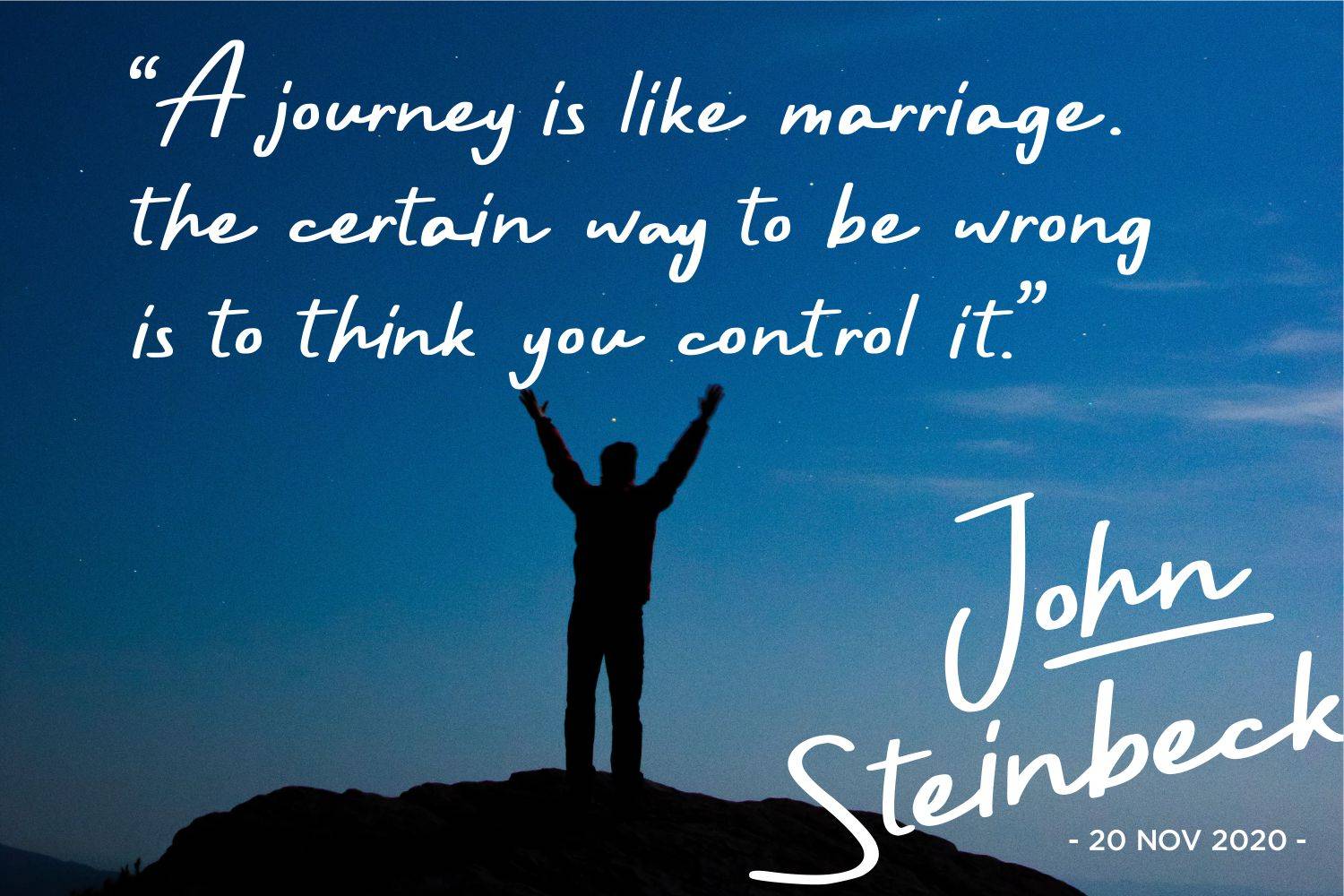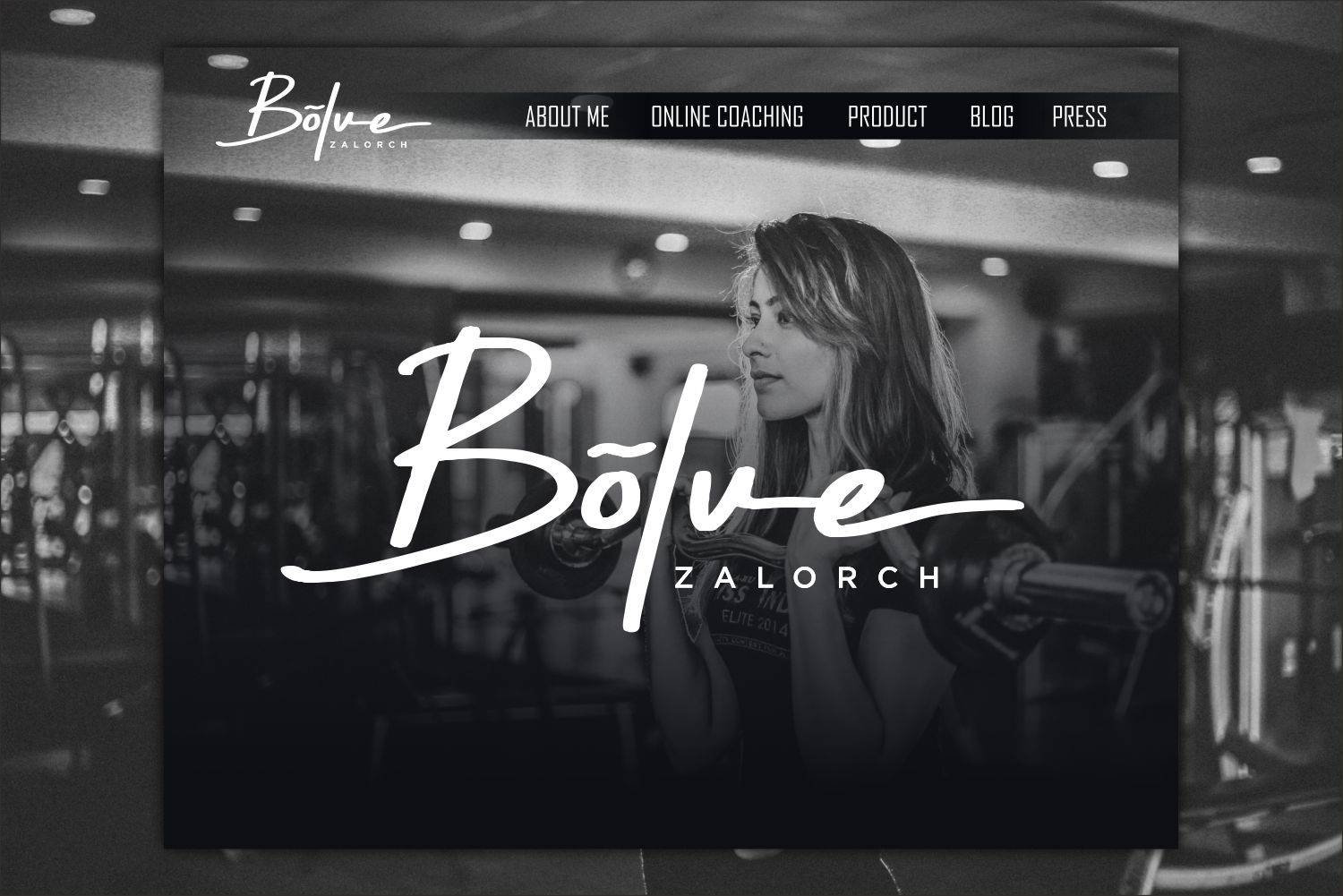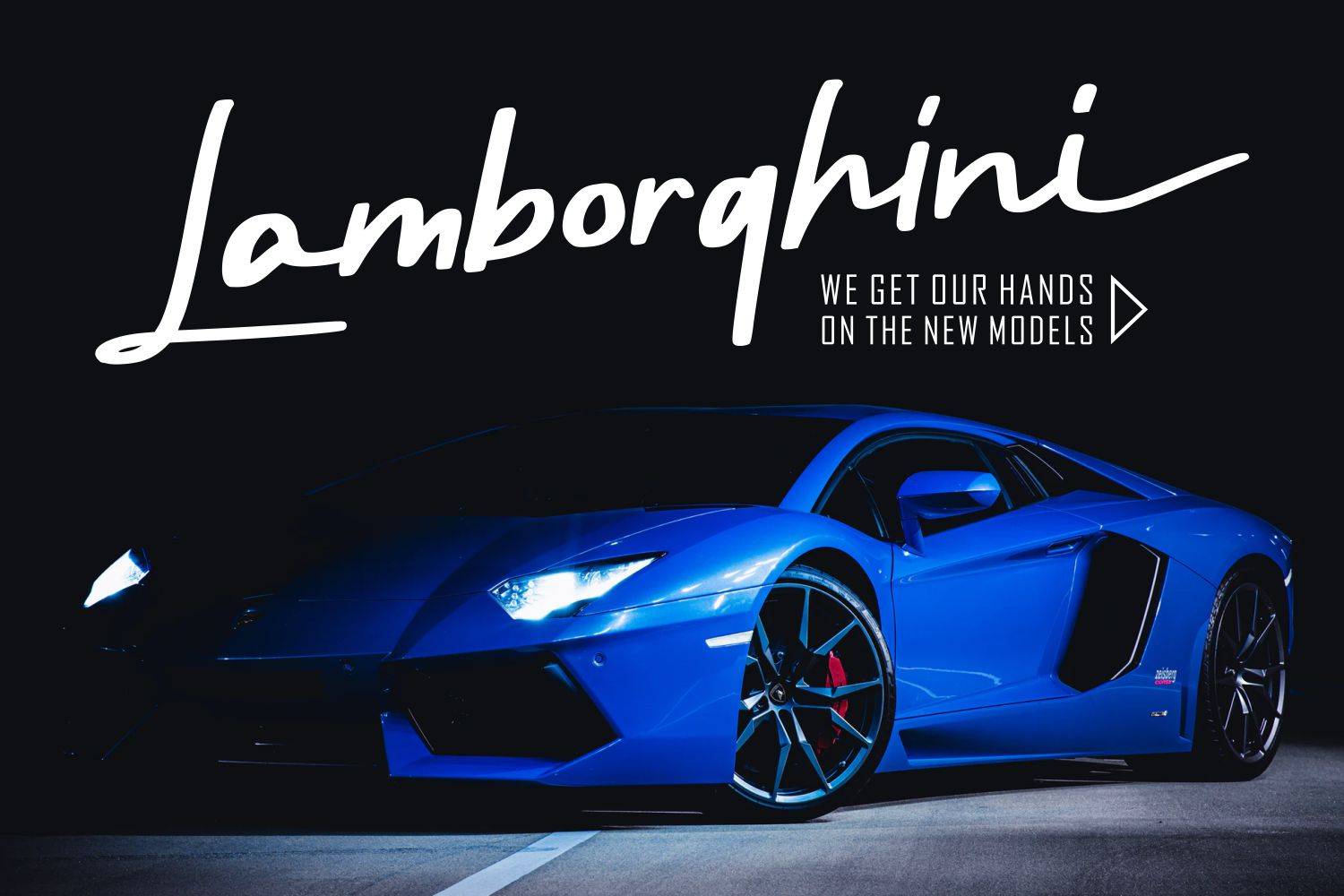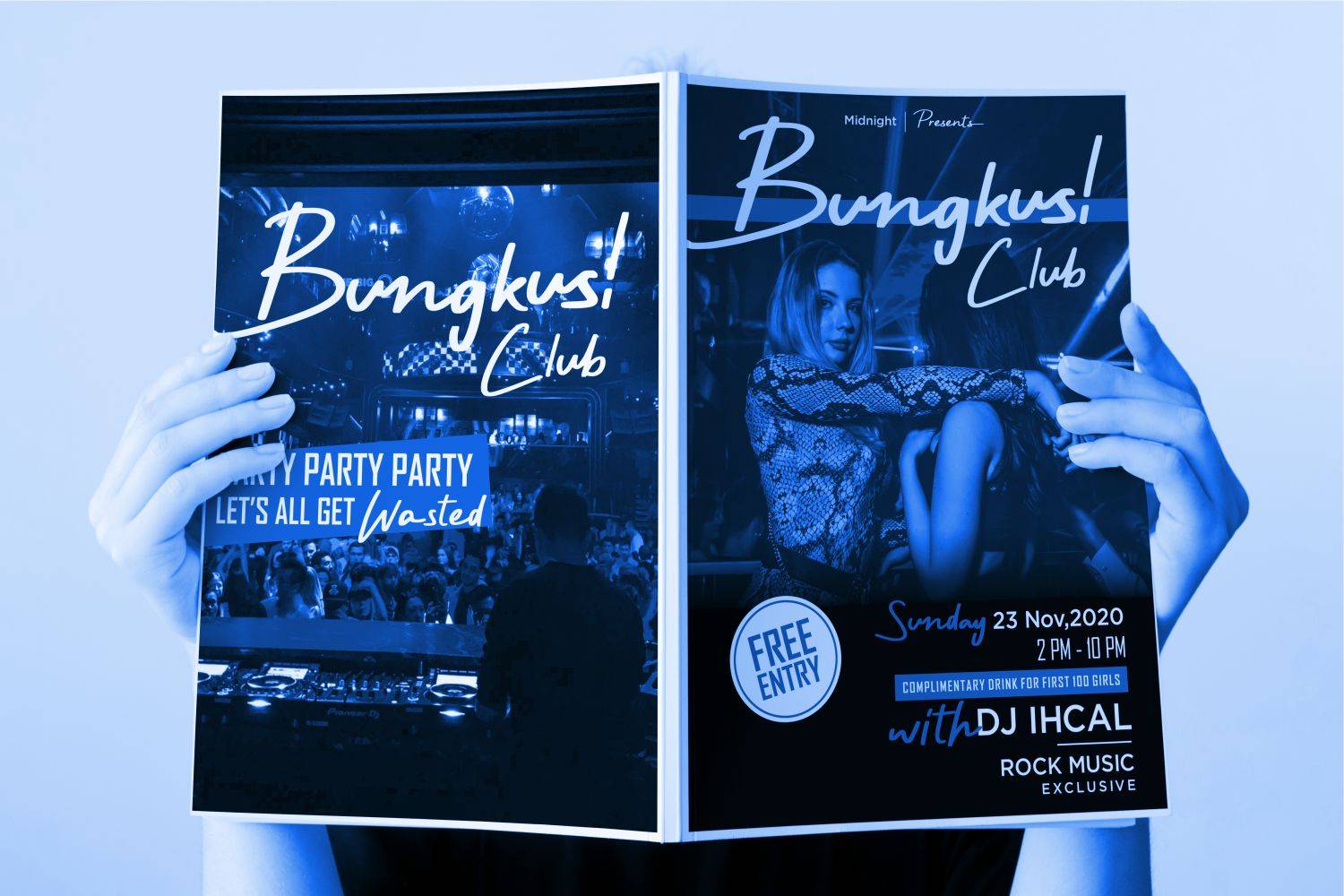
Rayleigh is a casual, handwritten script font characterized by its light weight and lively, flowing strokes that mimic natural penmanship. With medium contrast and a friendly, informal feel, it features distinctive, slightly irregular letterforms that add personality, making it ideal for creative projects, invitations, or branding that seeks a personal touch. This font works well for headlines, logos, and playful designs where warmth and approachability are desired.